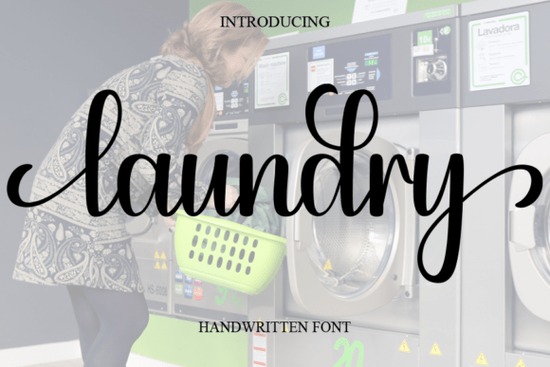
If you're looking for a soft, handwritten script that feels both elegant and approachable like something you’d write on a wedding invitation or stitch onto a linen tea towel the Laundry Font is a thoughtful choice. It’s not overly formal or fussy, but it carries warmth and intention. That gentle cursive rhythm makes it especially useful for creatives who want their text to feel personal without sacrificing polish.
When does Laundry Font work best?
This font shines where tone matters as much as legibility. Think: small-batch soap labels, boutique clothing tags, hand-lettered recipe cards, or minimalist baby announcements. Its relaxed curves and open spacing keep it readable at smaller sizes unlike some ultra-thin scripts that blur when printed on textured paper or embroidered onto fabric.
Because it’s designed with real-world use in mind, Laundry includes standard OpenType features like ligatures and alternate characters. You’ll notice subtle variations in letterforms (like a swash “y” or a connected “f-l” pair) that add quiet sophistication not gimmicks, just thoughtful details that make your layout feel considered.
How does it compare to other popular script fonts?
It sits comfortably between playful and refined. Unlike Tuesday Font, which leans slightly more structured and modern, Laundry feels softer less “designed,” more “written.” Compared to Giggle Beans Font, it’s less bouncy and cartoonish, making it better suited for adult-oriented branding or timeless stationery.
If you’ve used Playful Note Font before, you’ll recognize the friendly energy but Laundry swaps out some of the whimsy for quiet confidence. And while Fairmont Ridge Font offers vintage charm with its serif-influenced terminals, Laundry keeps things clean and contemporary, ideal for brands aiming for calm luxury rather than rustic nostalgia.
Real projects where Laundry fits naturally
- Wedding stationery: Save-the-dates, menus, and vow books especially when paired with muted tones or natural textures like kraft paper or cotton rag.
- Small business branding: A local florist, ceramic studio, or herbal apothecary might use Laundry for their logo lockup or product tags soft enough to feel human, clear enough to read at a glance.
- Greeting cards & printables: Handwritten-style quotes, birthday notes, or gratitude journals benefit from its relaxed flow.
- Fashion lookbooks & mood boards: Works well layered over soft-focus photography or neutral backgrounds without competing for attention.
It’s also a smart pick for print-on-demand sellers who want consistent, high-quality results across mugs, tote bags, and wall art. Because the letterforms are well-spaced and moderately weighted, they scale cleanly even at 12 pt on a folded greeting card or 48 pt on a canvas print.
What to pair it with (and what to avoid)
Laundry pairs beautifully with simple sans-serifs like Montserrat, Lato, or even basic system fonts like Helvetica Neue for contrast. Avoid pairing it with other decorative scripts it doesn’t need competition. If you’re designing a full layout, try setting body copy in a clean, neutral typeface and reserving Laundry for headlines, names, or short phrases only.